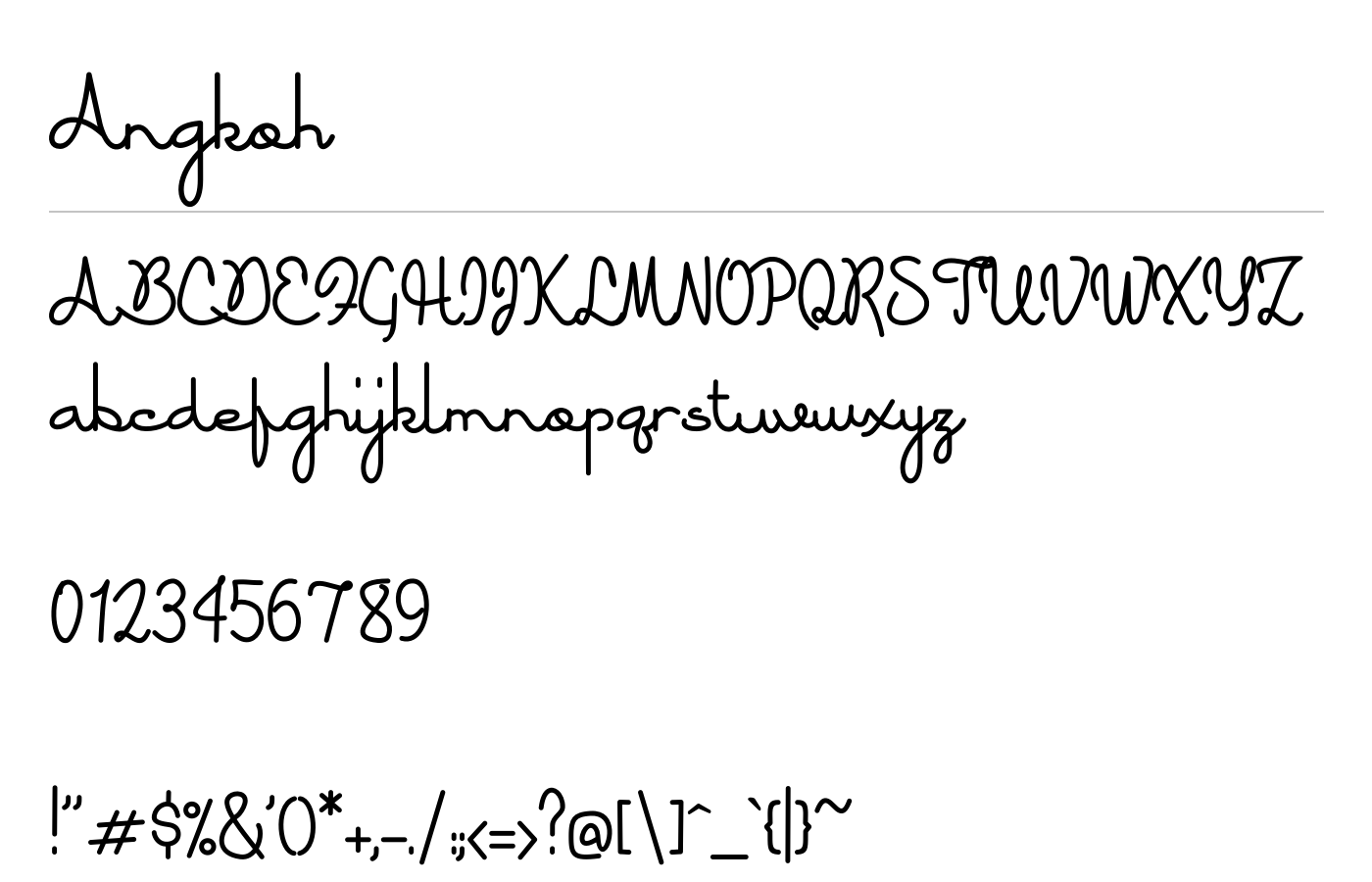
Angkoh is a playful, hand-drawn script font that features smooth, rounded strokes and a casual, slightly whimsical style. Its delicate, monoline letterforms with quirky loops and consistent stroke weight give it a friendly and approachable feel, making it ideal for branding, invitations, and creative projects that want to convey warmth and personality. This font works well in both headlines and short texts where a personal, informal touch is desired.
Angkoh Font